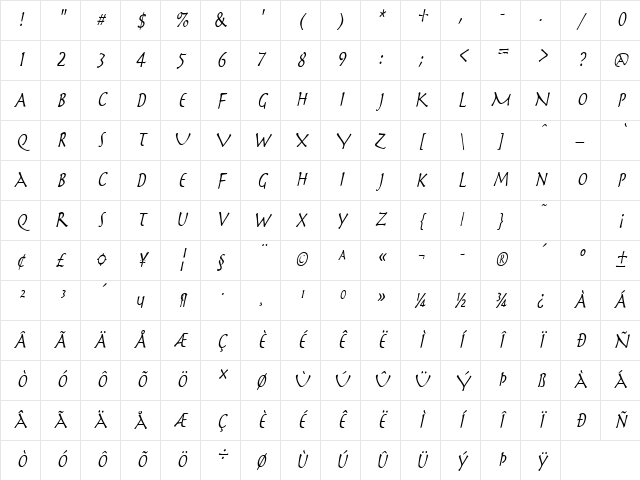
Mythology Thin Italic
Mythology Thin Family
Design Context for Mythology Thin
Mythology Thin is a composed and adaptable typeface that performs quietly and consistently across a wide range of design contexts. The slanted form adds forward momentum and visual energy. Its slender proportions lend an understated elegance to any composition.
Pro Tip: Use Mythology Thin for emphasis, pull quotes, and subheadings where its slanted energy can add rhythm to the layout.